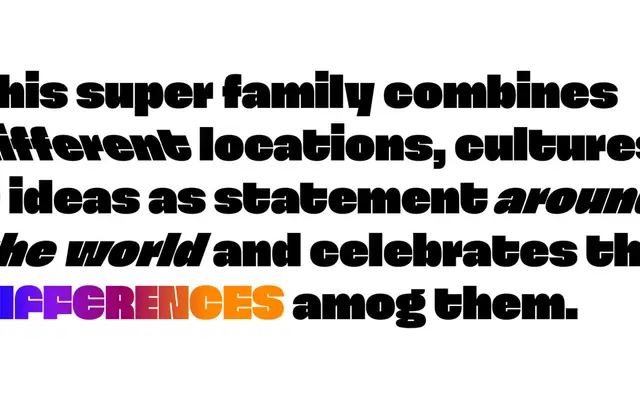
Spektra
Type Salon · Krista Likar & Alja Herlah · 2021
A variable, multi-script family by Krista Likar and Alja Herlah covering Latin, Cyrillic, Arabic, Greek and Hebrew within a single unified counter-space system.
Designed by Krista Likar and Alja Herlah, Spektra is built around a shared counter space that governs weight distribution across all five scripts, ensuring visual coherence without flattening the distinctive characteristics of each writing system. It operates as a variable font with weight and slant axes, running from very thin to an extreme black defined by the thickness of Arabic horizontals. Each weight comes in italic and backslant styles, making it a highly expressive choice for multilingual editorial and identity work. The family has received a GRANSHAN special mention, the Modern Cyrillic 2021 award and recognition at the Brumen biennial.
A multi-script variable family with a unified counter space driving weight distribution across five scripts; the humanist sans classification reflects the organic, culturally considered approach to letterform construction across Latin, Cyrillic, Arabic, Greek and Hebrew.